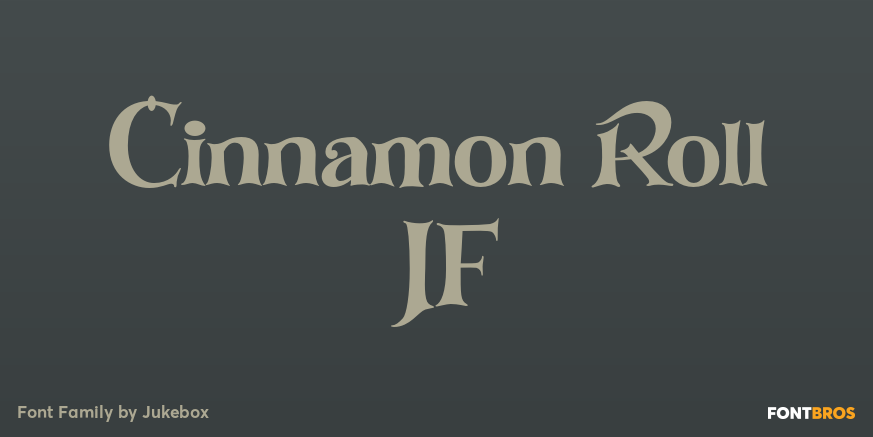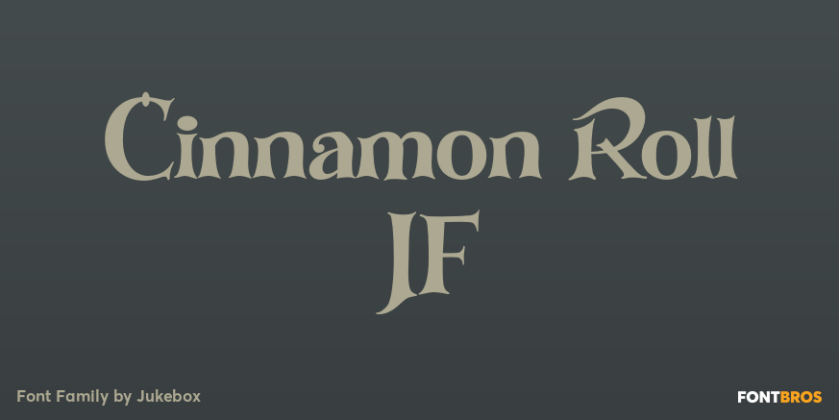
Cinnamon Roll JF
About Cinnamon Roll JF
Cinnamon Roll is a happy and whimsical font partially based on an old photo-typositing face. Starting with the limited character set I had of the original font (seen on the titles of a 1960s holiday animation) I filled in the rest with letters of my own…